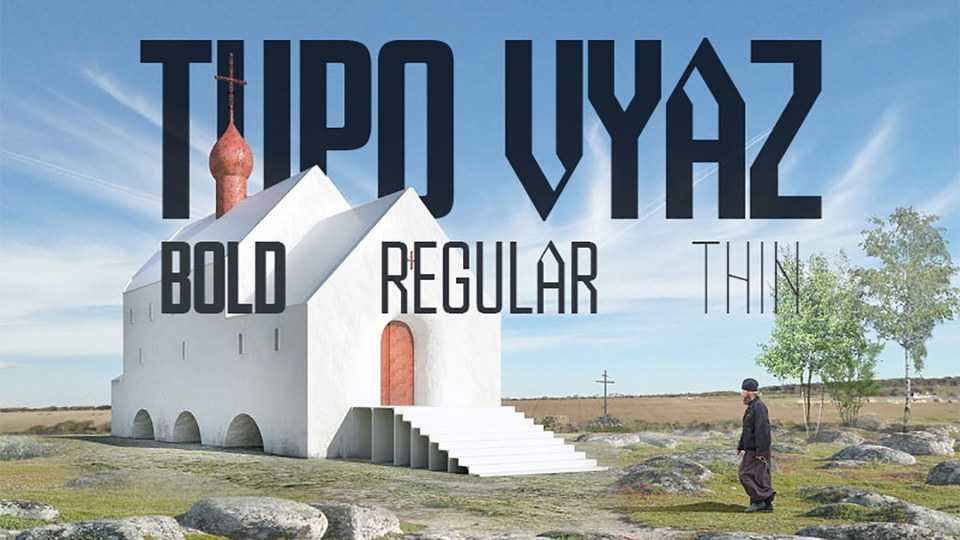
Download Tupo Vyaz typeface, a modular closed sans serif variable font with very simple design and some elements from the northern variant of Vyaz slavonic calligraphic hand.